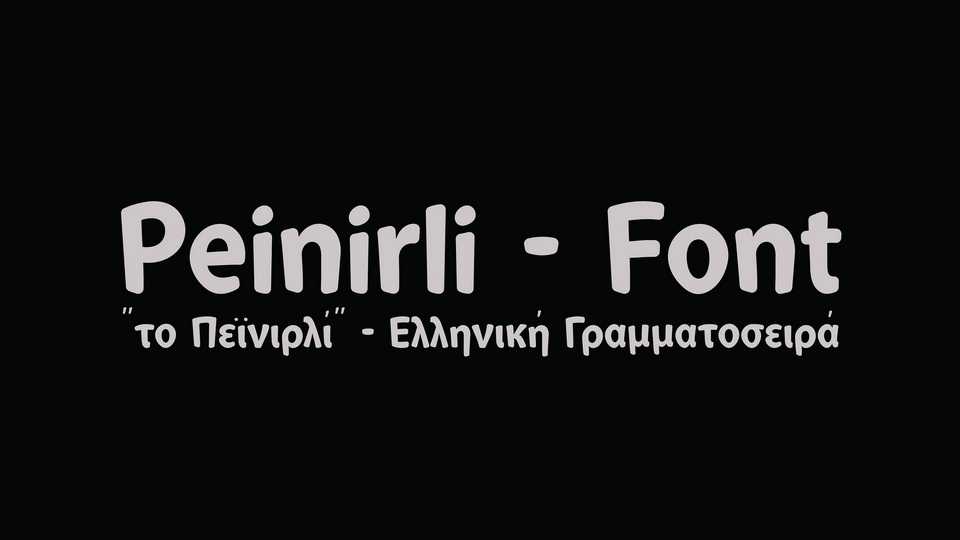
Download Peinirli font, a simple and natural handwritten typeface that combines cuteness and fun. Peinirli font is a great choice for any kid’s app, book, toy, packaging, movie, theme park and so much more.
Designer: Christos Lentzaris